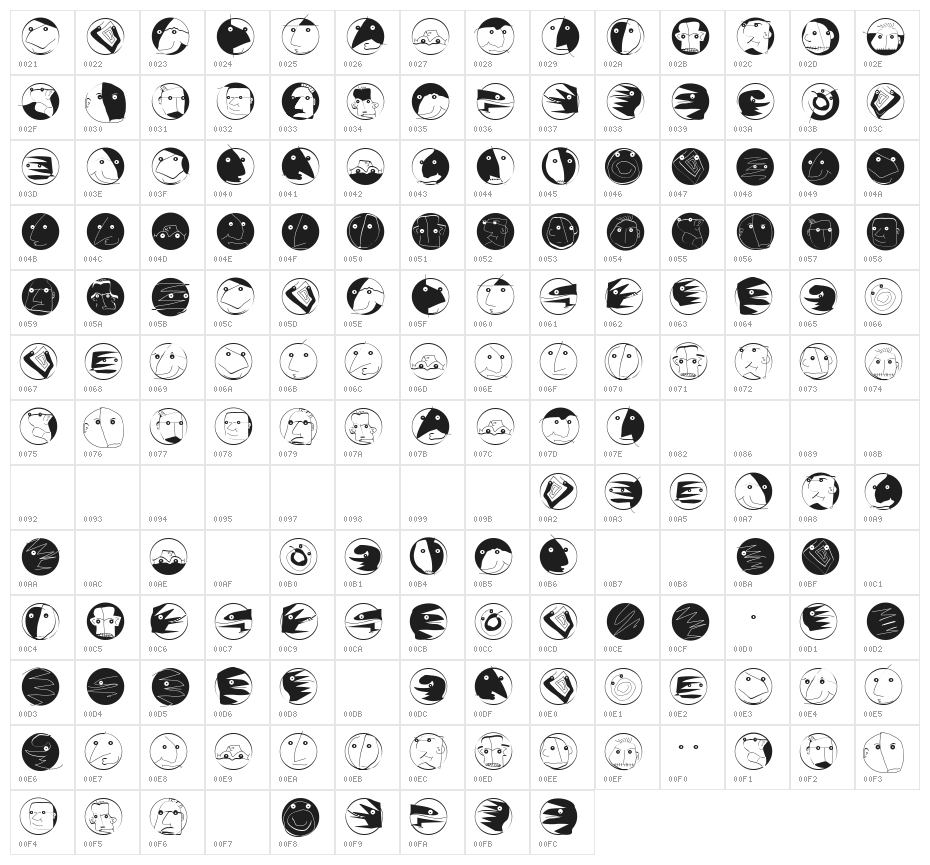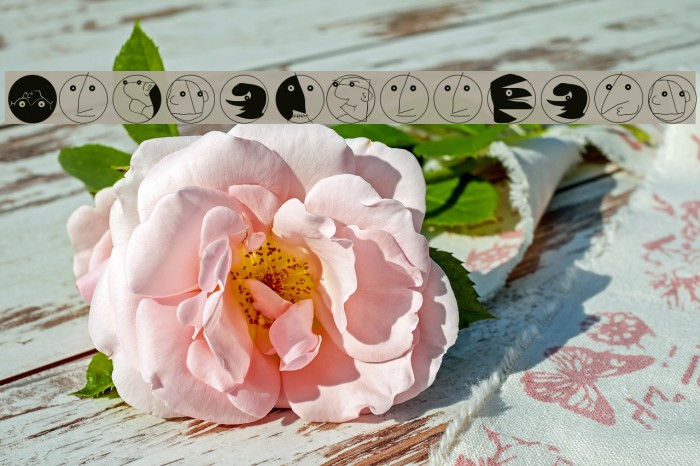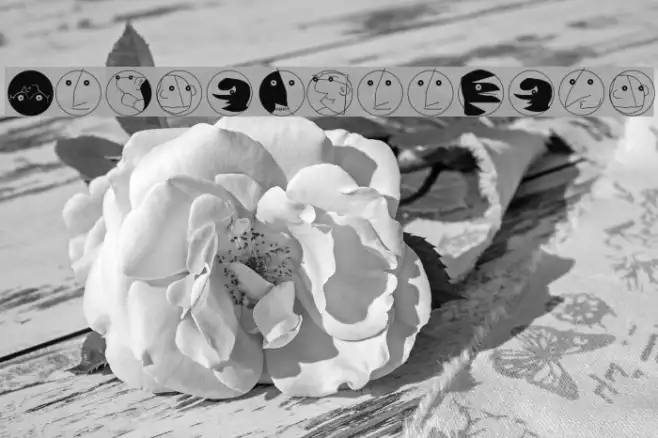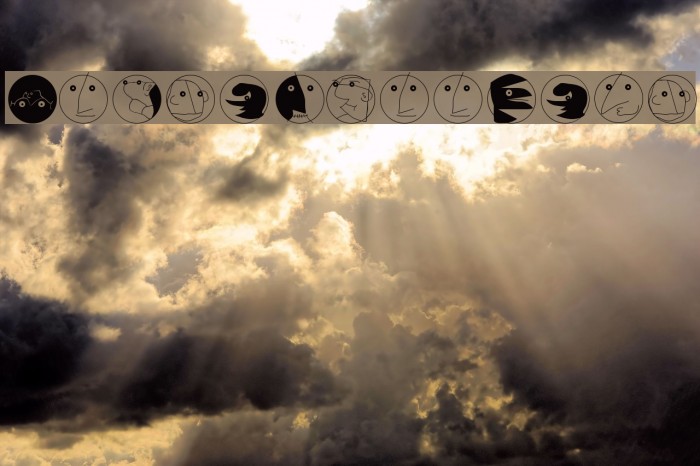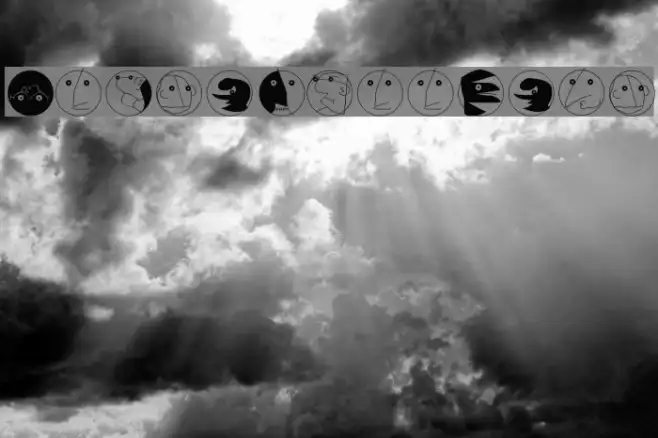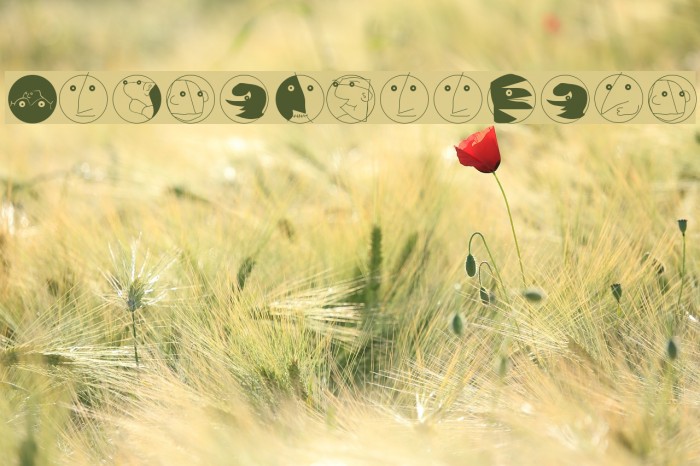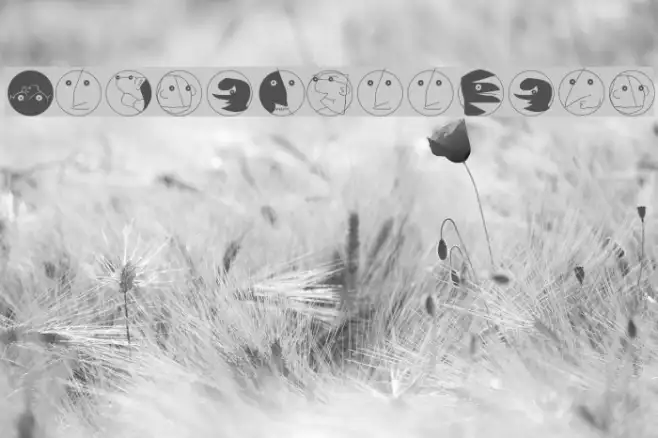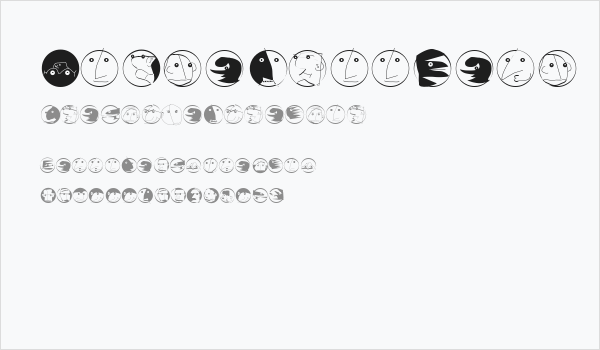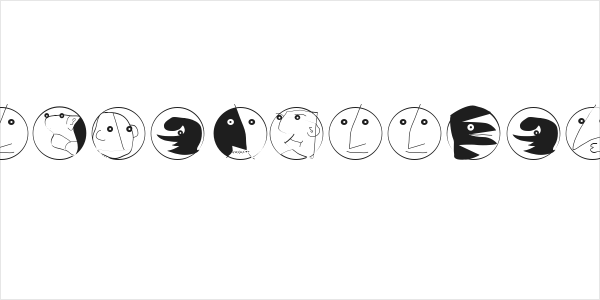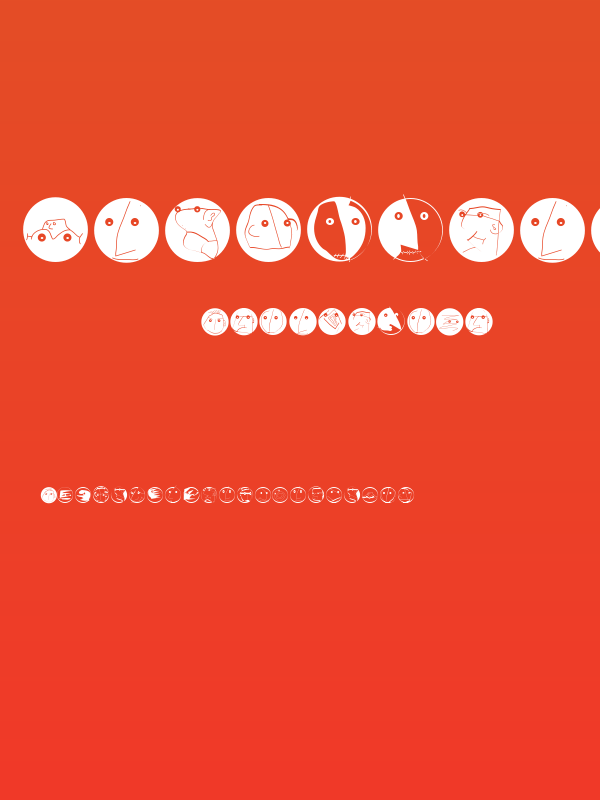
MouseDroodels Font
MouseDroodels Description
A highly decorative and playful font where each character is represented by a unique, abstract mouse-like face or doodle within a circle. The glyphs are hand-drawn, with a mix of filled and outlined styles, and feature whimsical, expressive line work.
| Overall Style | Decorative, Playful, Artistic |
| Use Case | Logos, Posters, Children's materials, Art projects |
| Proposed Projects | Children's books, playful branding, creative posters, art projects, greeting cards. |